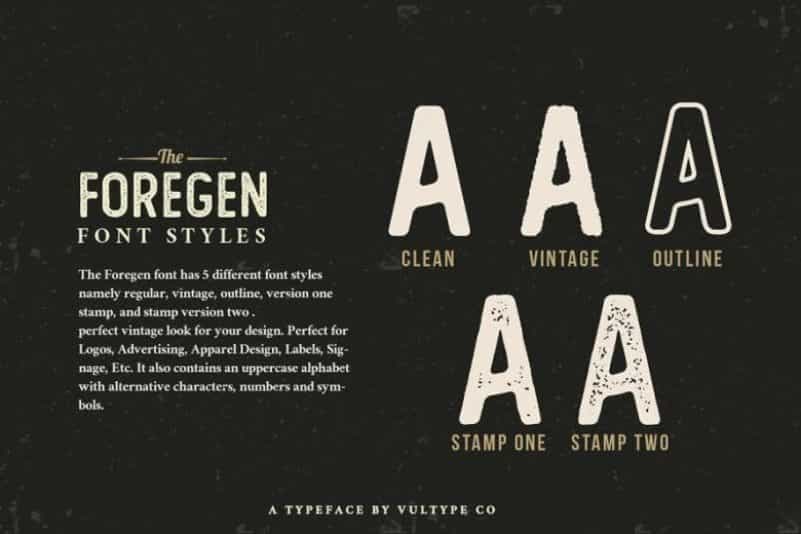
Discover The Foregen Vintage Font, part of the Sans Serif Display Retro Gothic collection—a versatile and unique font perfect for adding a personal touch to your projects. Download it for free and enjoy crafting designs with style, from invitations to social media posts. This font is available exclusively for personal use, giving you the freedom to create without limits. Unlock your creativity with The Foregen Vintage Font today!
This is a great and vintage font, that are combined into the pretty package. Have to make a photo for social media or create a trend branding for the product? The Foregen Font – Will undoubtedly meet these ends.